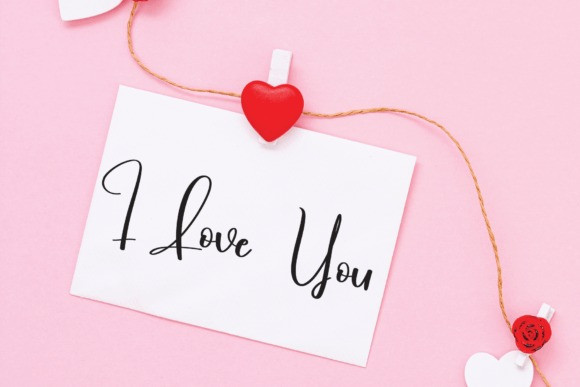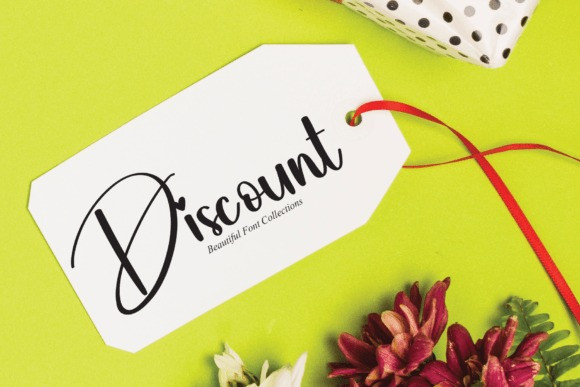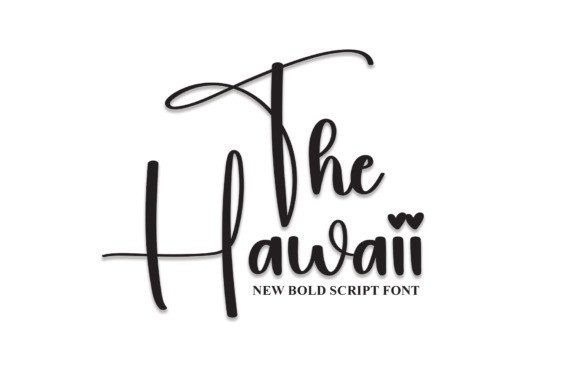
The Hawaii Font
The Hawaii Font is a neat and beautiful handwritten font described by an elegant touch, perfect for your favorite projects. Fall in love with its incredibly distinct and timeless style, and use it to create spectacular designs!